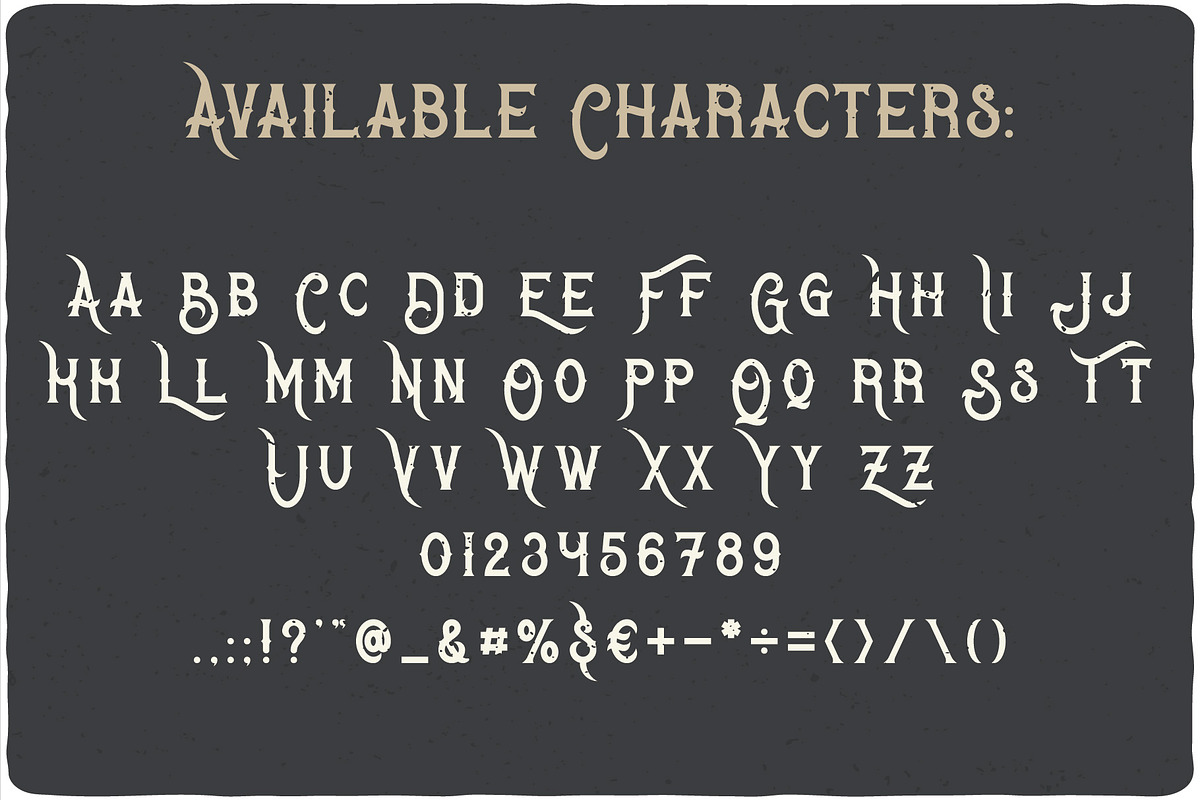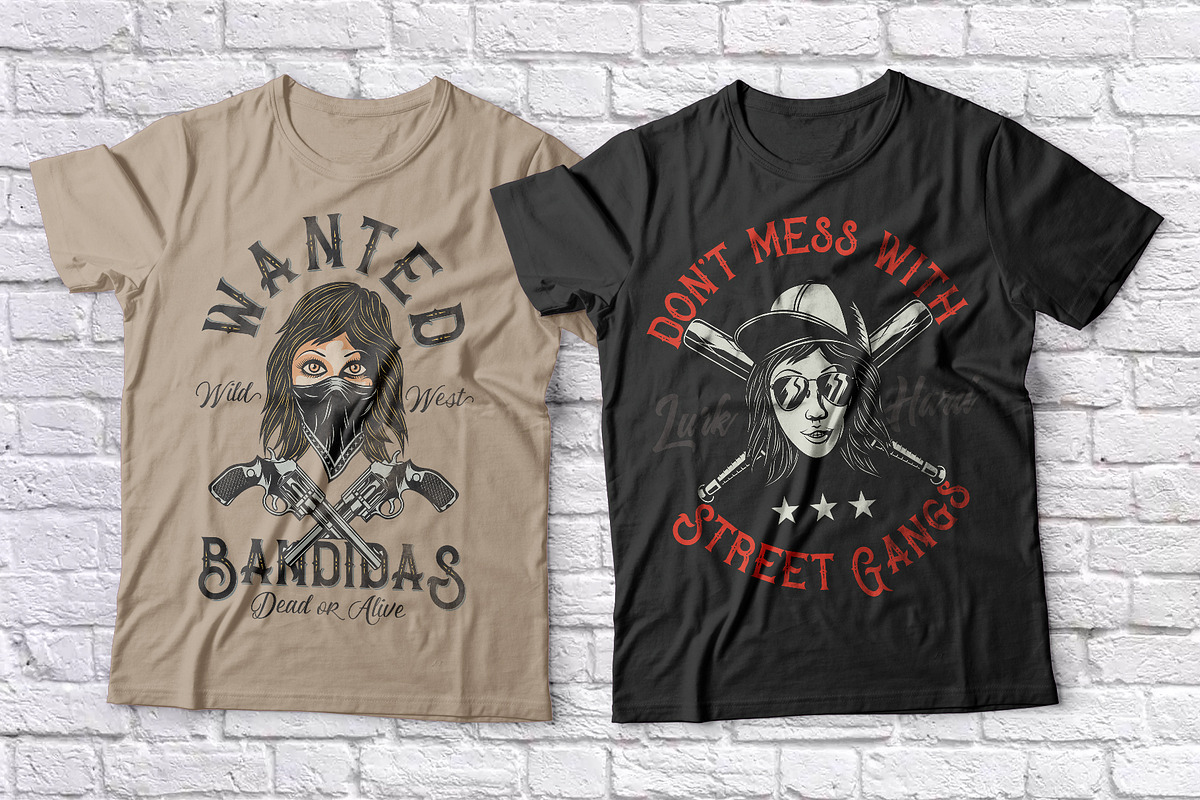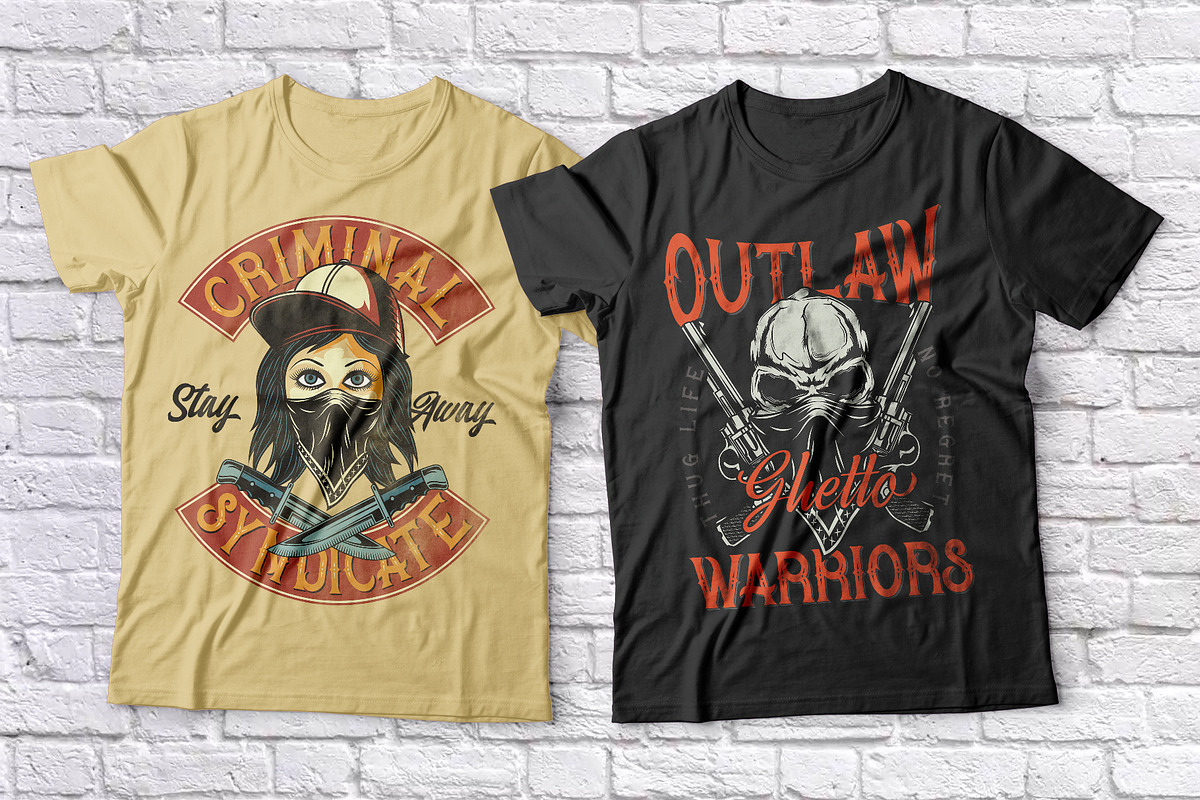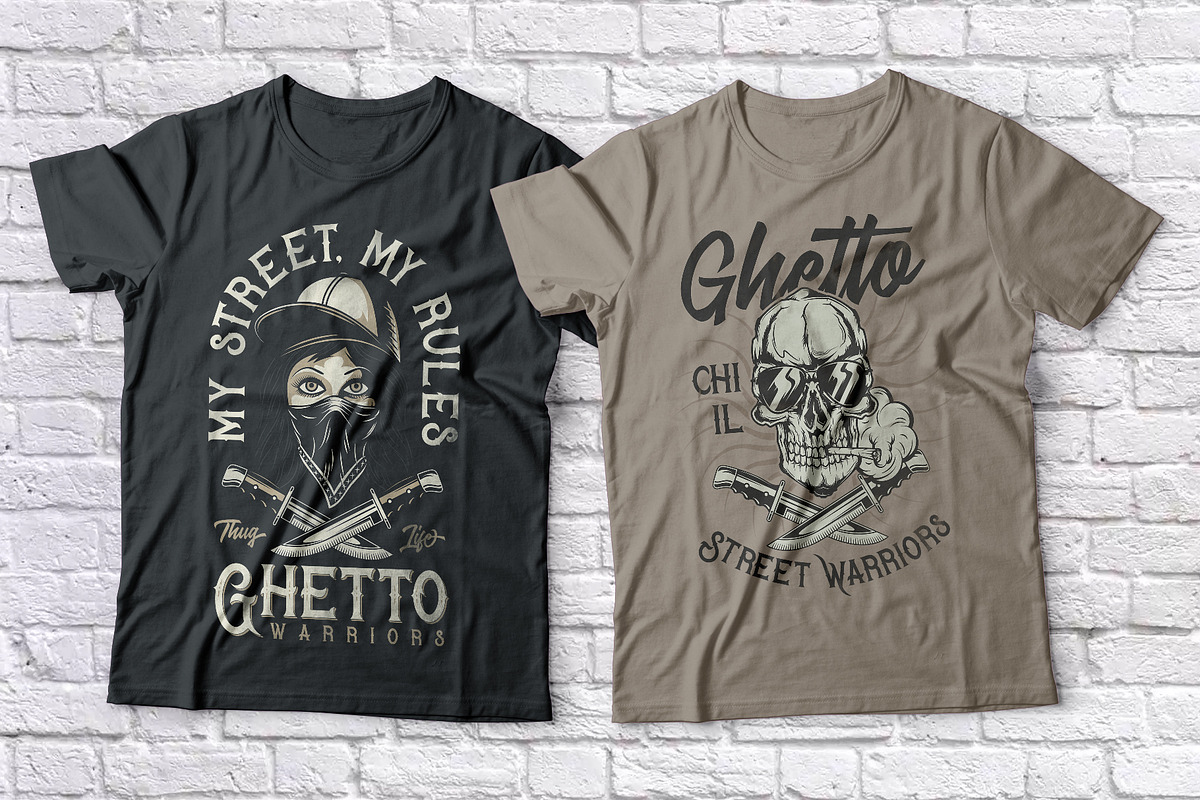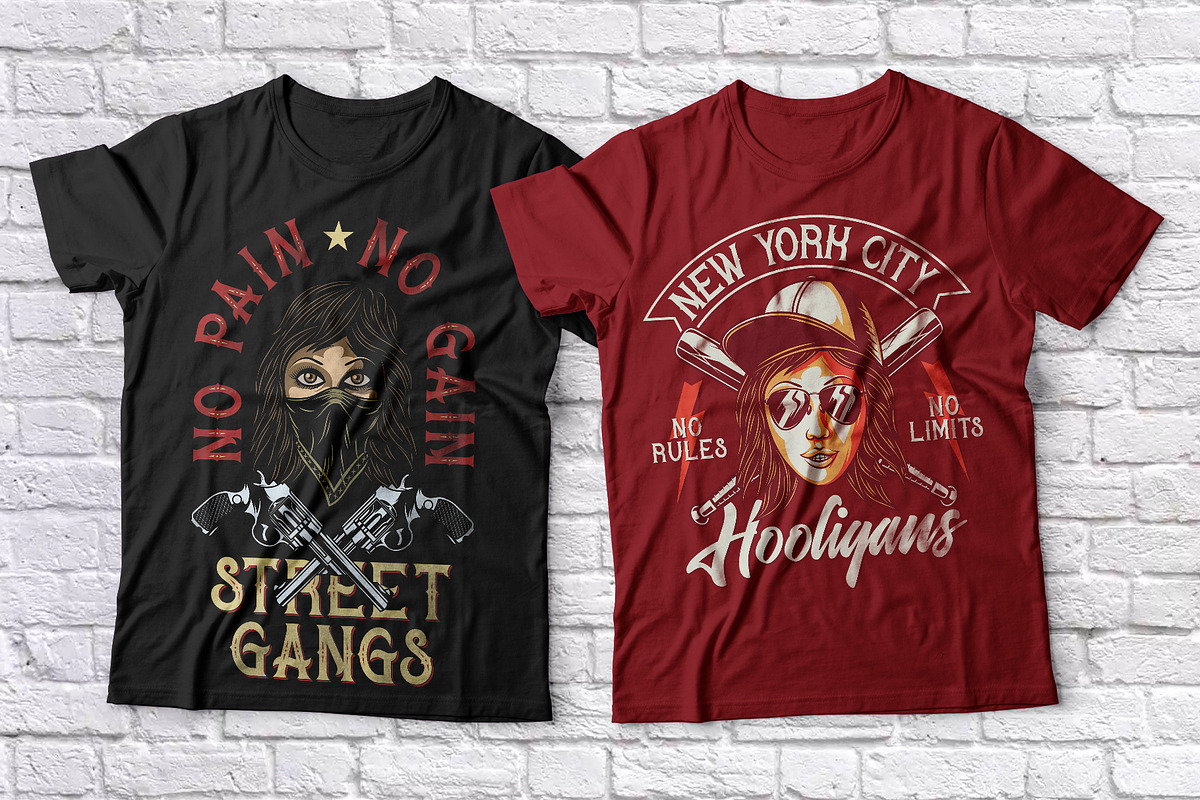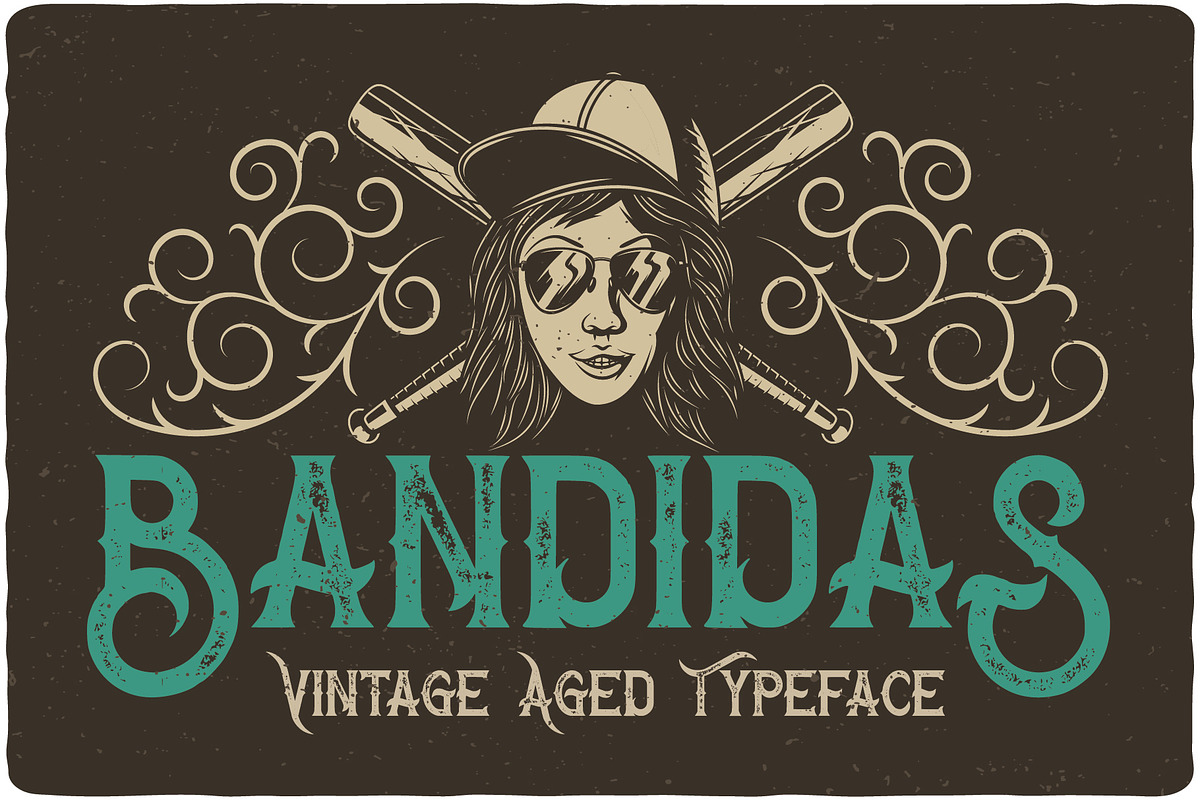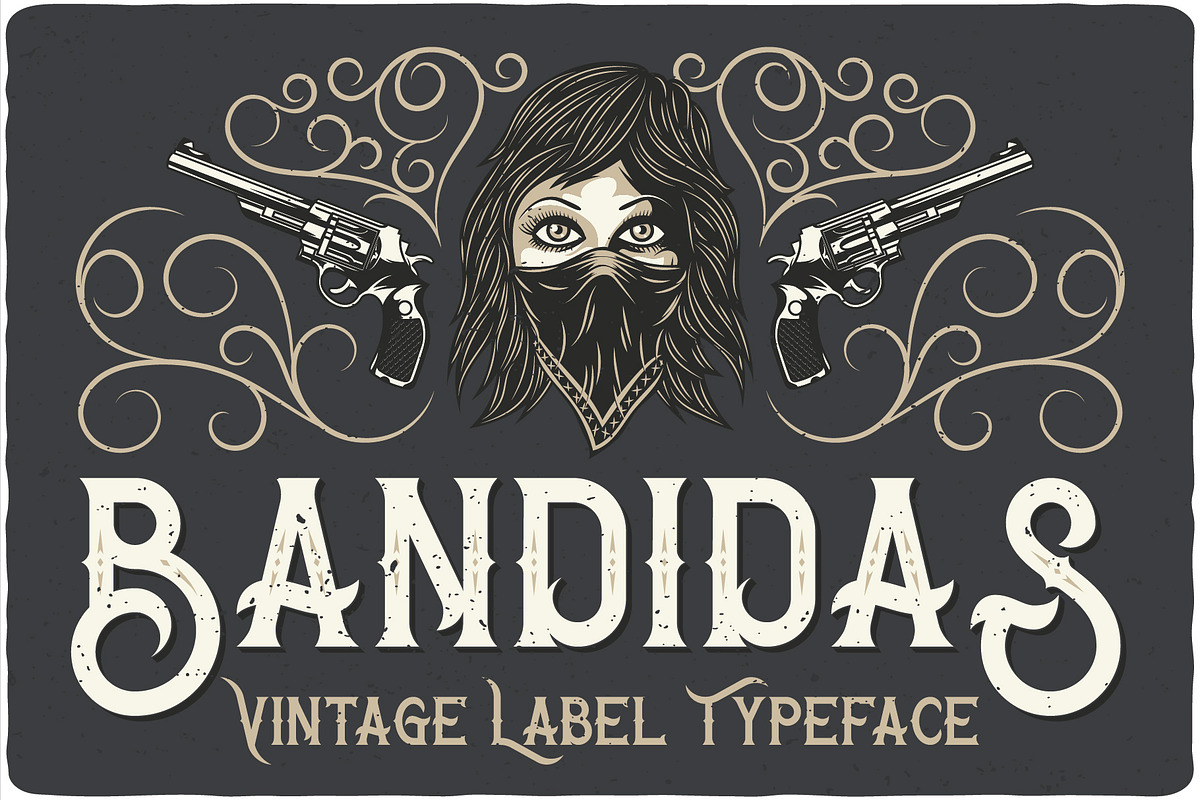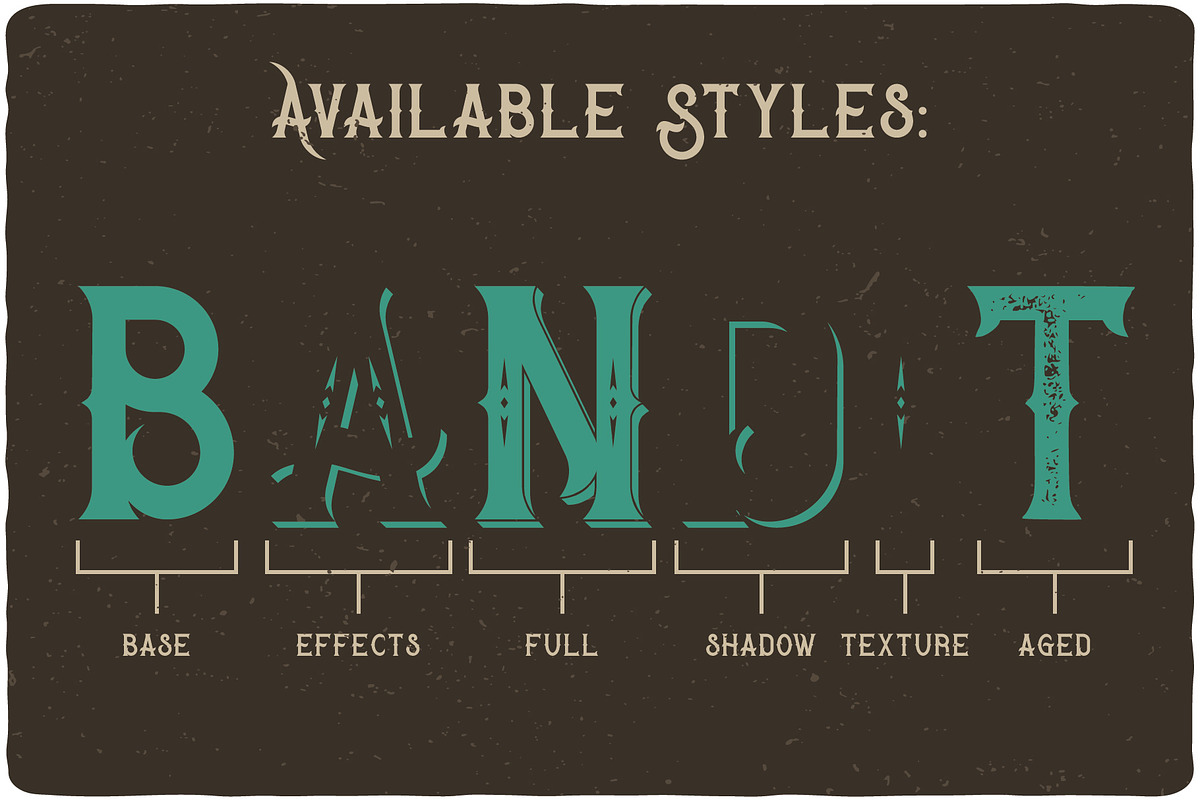
Bandidas Typeface
Introducing a vintage look label font named "Bandidas".Typeface includes five styles plus aged version, for sample look at 4th preview. This font will good viewed on any retro design like poster, t-shirt, label, logo etc.